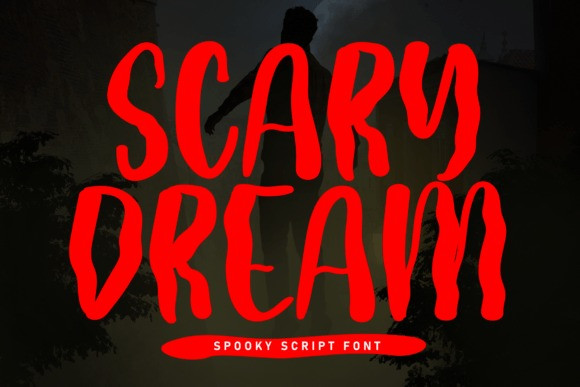
Scary Dream Font
Scary Dream Font, a spine-chilling script font that adds a haunting touch to your designs. With its sinister curls and ominous strokes, this font is perfect for creating an unsettling ambiance. Whether conjuring up Halloween vibes or infusing a mysterious aesthetic, Scary Dream brings your nightmares to life with each letter. Ideal for spooky invitations, chilling posters, or any project that demands a ghostly, otherworldly vibe. Transform your text into an experience with the haunting allure of Scary Dream.